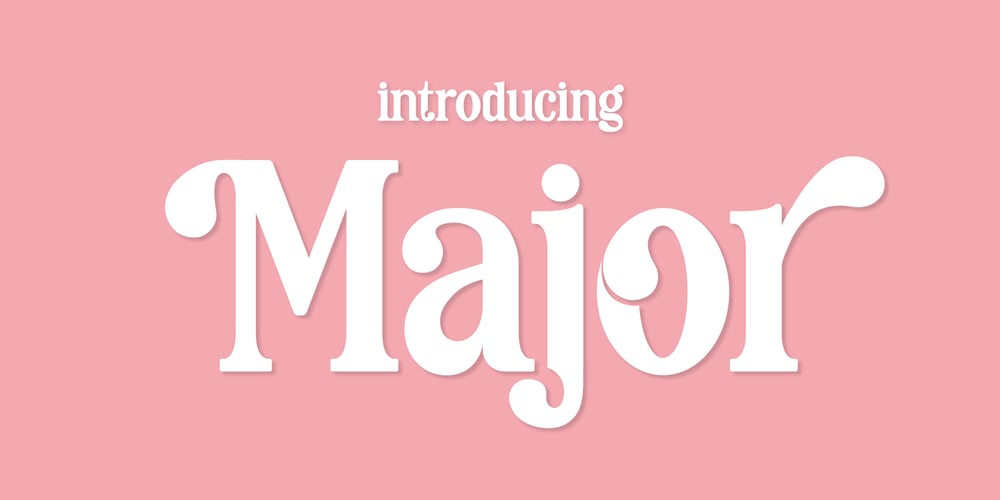
Major Font Family was designed by Rattana Rattanawan and published by Fox7. Major contains 1 styles and family package options. Major Font is designed to be versatile. Compatible with both modern and vintage design styles. You can use it for various projects, such as blog posts, logos, branding, ads, invitations, greeting cards, planners, photo albums, decorations, and much more.Hope you are happy and enjoy your creations. Thank you!